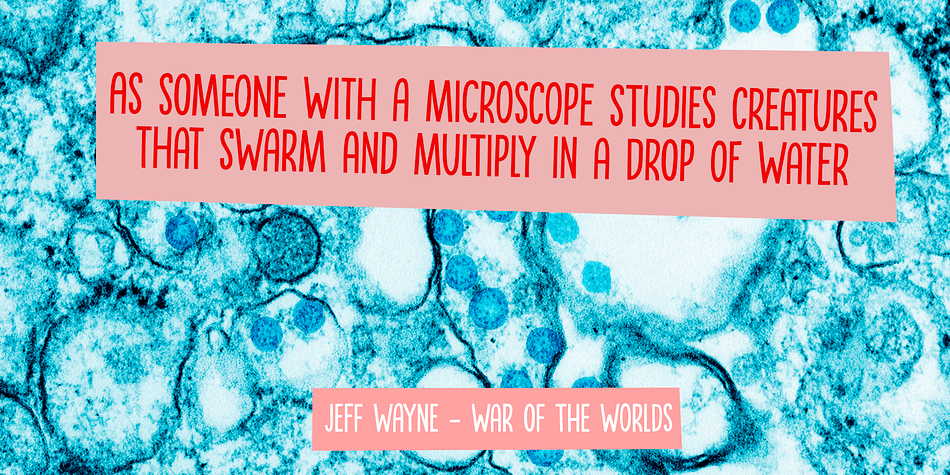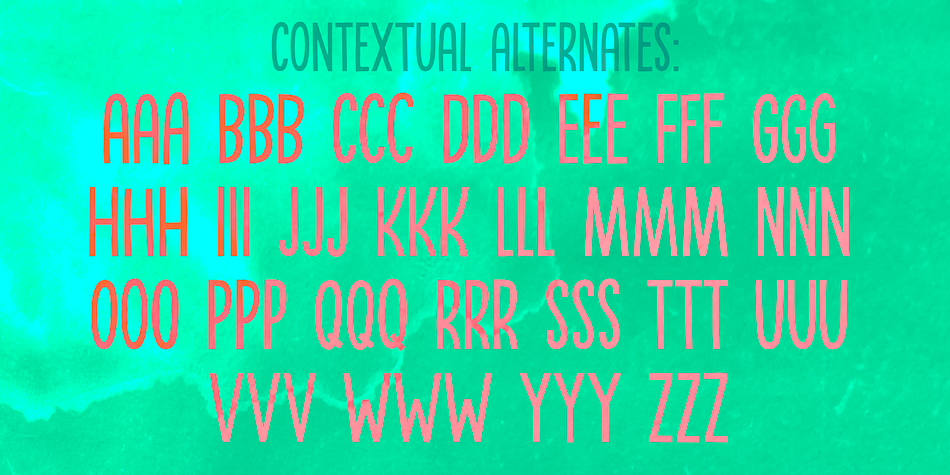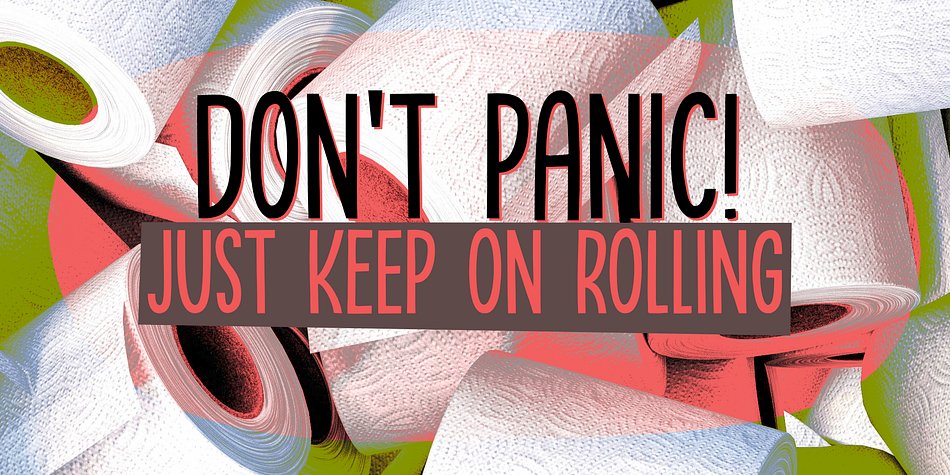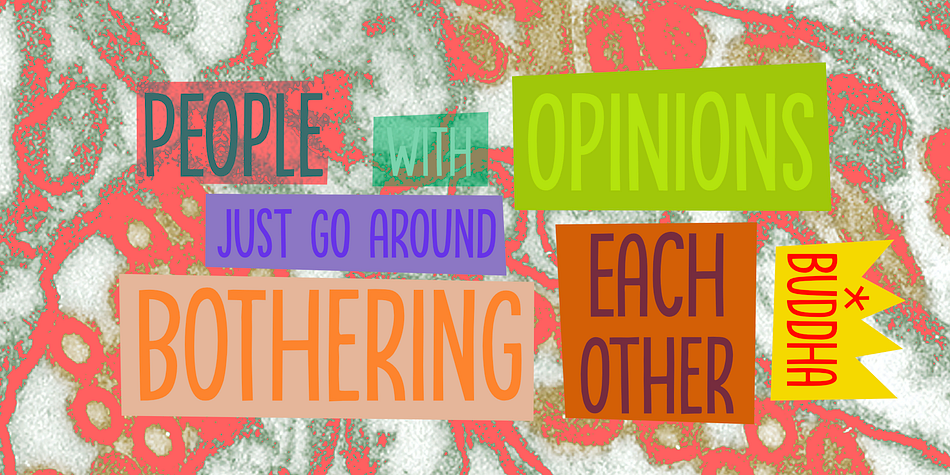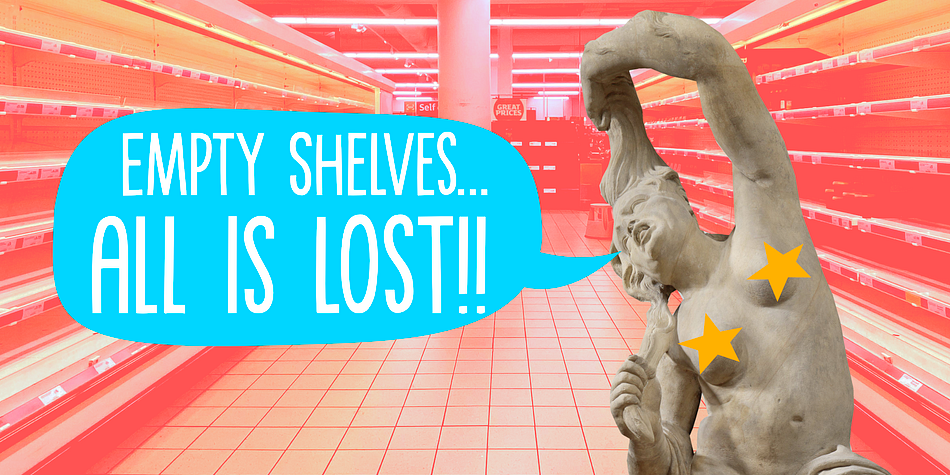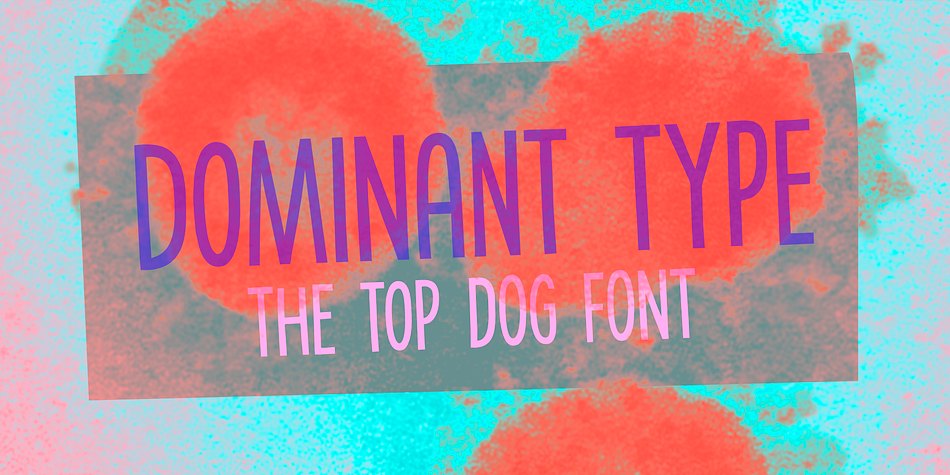
Dominant Type
Designed by David Kerkhoff, Dominant Type is a hand display and hand drawn font family. This typeface has two styles and was published by Hanoded.
We’re in a lockdown of sorts (again) and things are pretty … uhm … boring at the moment. No going out for a coffee, no school (so the kids are at home), no meeting with friends… The new reality kinda sucks if I say so myself.
Besides that, it turns out that we have a new dominant type of Covid in Holland.. wait, Dominant Type! Ahh, great name for my latest font!
Dominant Type is a handmade all caps font. It comes with extensive language support (including Vietnamese) and 2 sets of alternate glyphs for that bit of ‘random awesomeness’!
Styles Hand Display, Hand Drawn